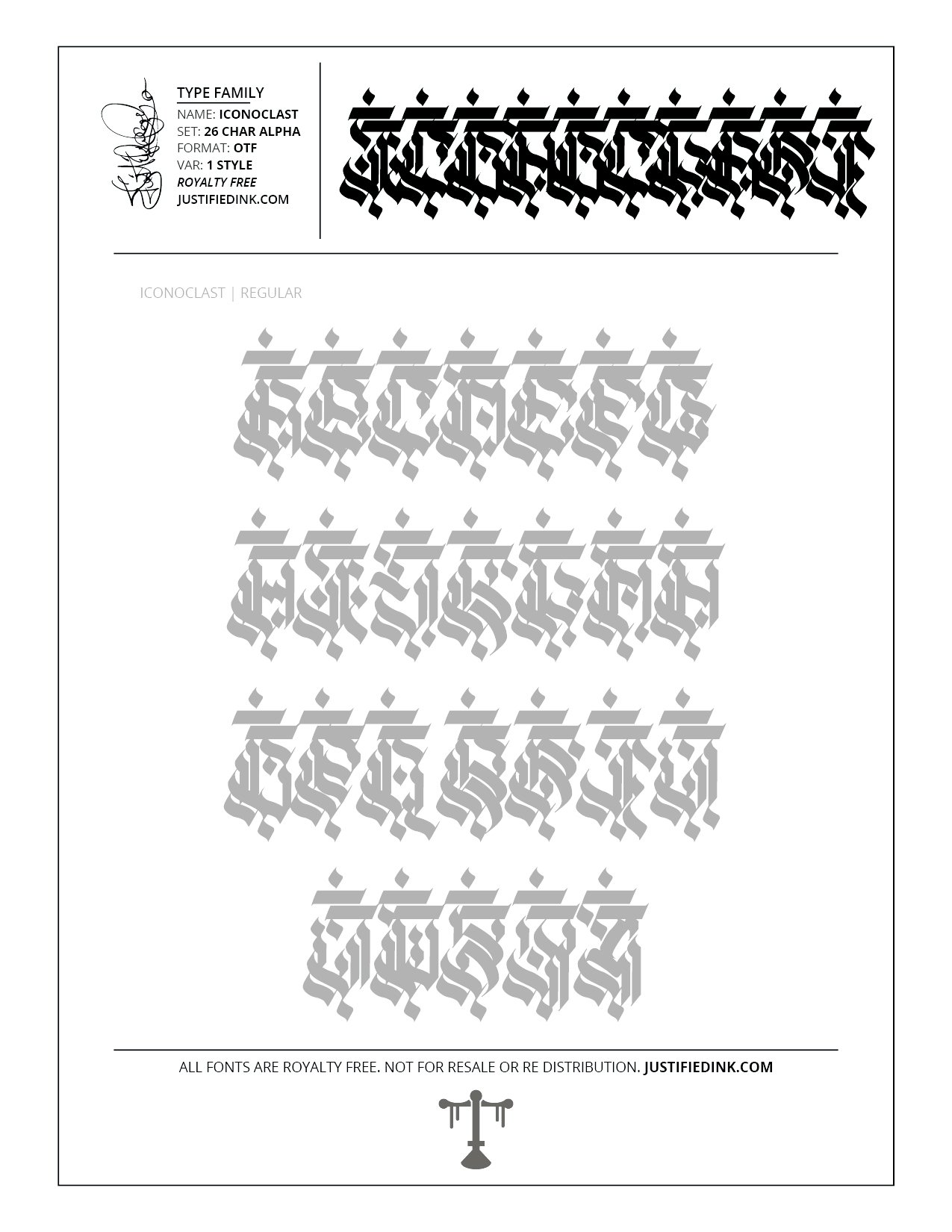
Iconoclast (1 style) - Custom Font by Justified Ink
NAME: Iconoclast
Tear down whats been built and become an Iconoclast. With certain respects to tradition there is immense need to distill them down to expose their truth.
This font is part of the collection by Justified Ink, called Blackletter II. After 15+ years creating, I began to focus on building personal libraries of my work. The Blackletter II Collection was created through writing page after page, and countless hours over a 2 year span of daily practice. Each font from this collection has been hand drawn, manually vectored, and custom set as a type-able font. It comes in a full set of 26 char alpha. Each font family has variations in styles and/or non-alpha chars.